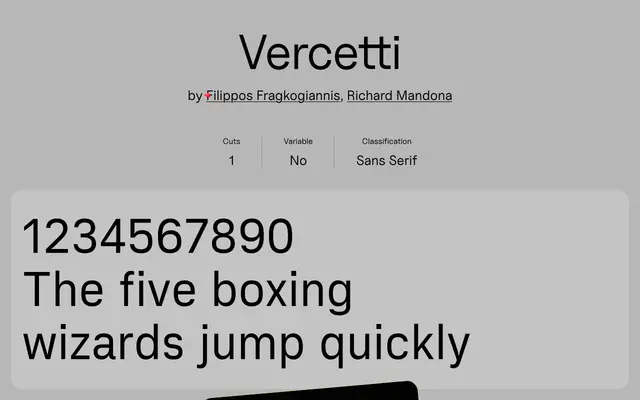
Vercetti
A single-cut sans-serif by Filippos Fragkogiannis and Richard Mandona, released free for commercial and personal use.
A sans-serif typeface offered in one cut, with no variable axis and no italic or condensed variants. Released under the Licence Amicale V.0.2, which permits commercial use, modification and redistribution with some additional conditions. The minimal offering makes it a limited option outside of very basic use cases.
The page classifies Vercetti as Sans Serif. Without further detail, a general grotesque subcategory is most appropriate.